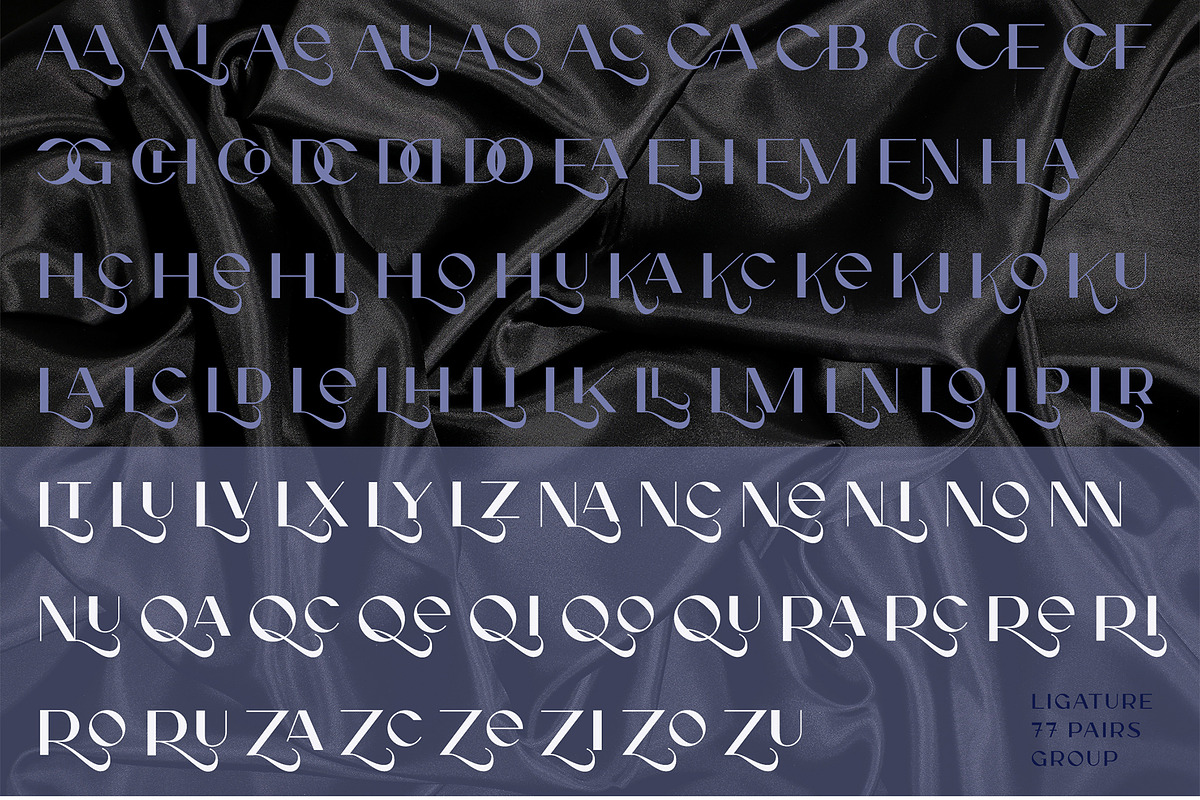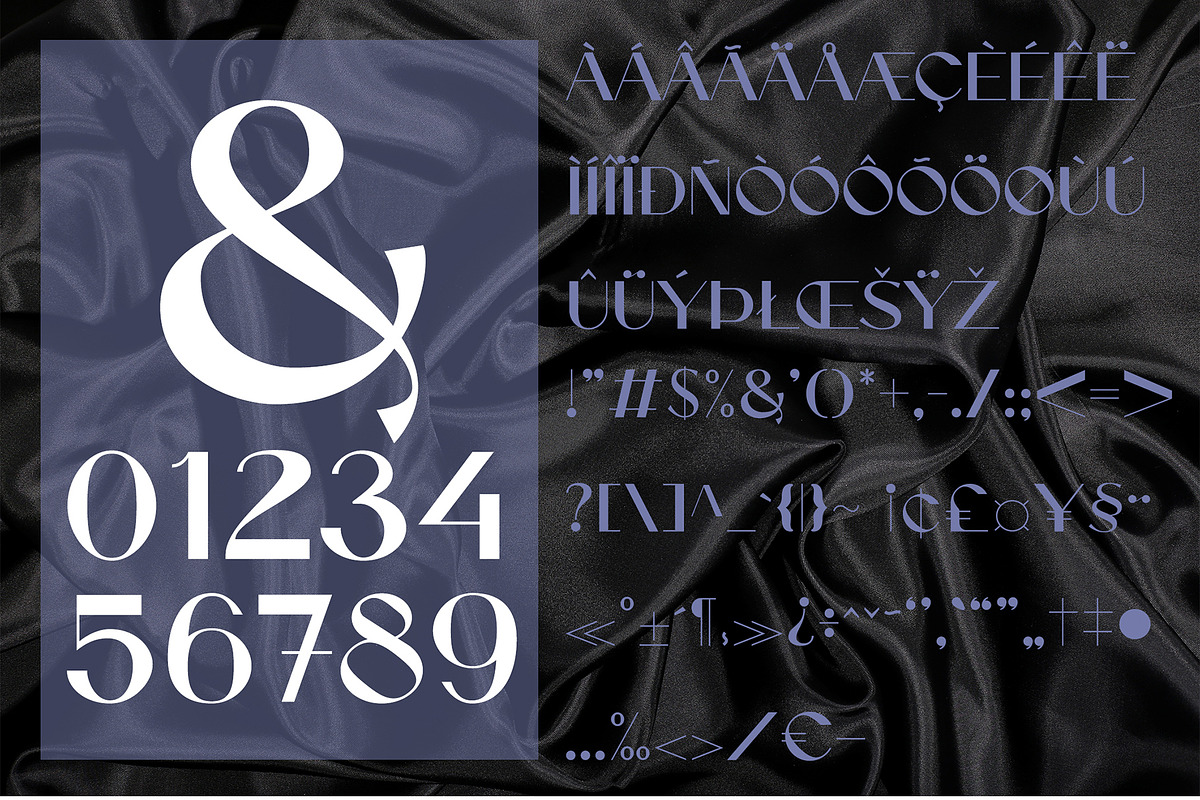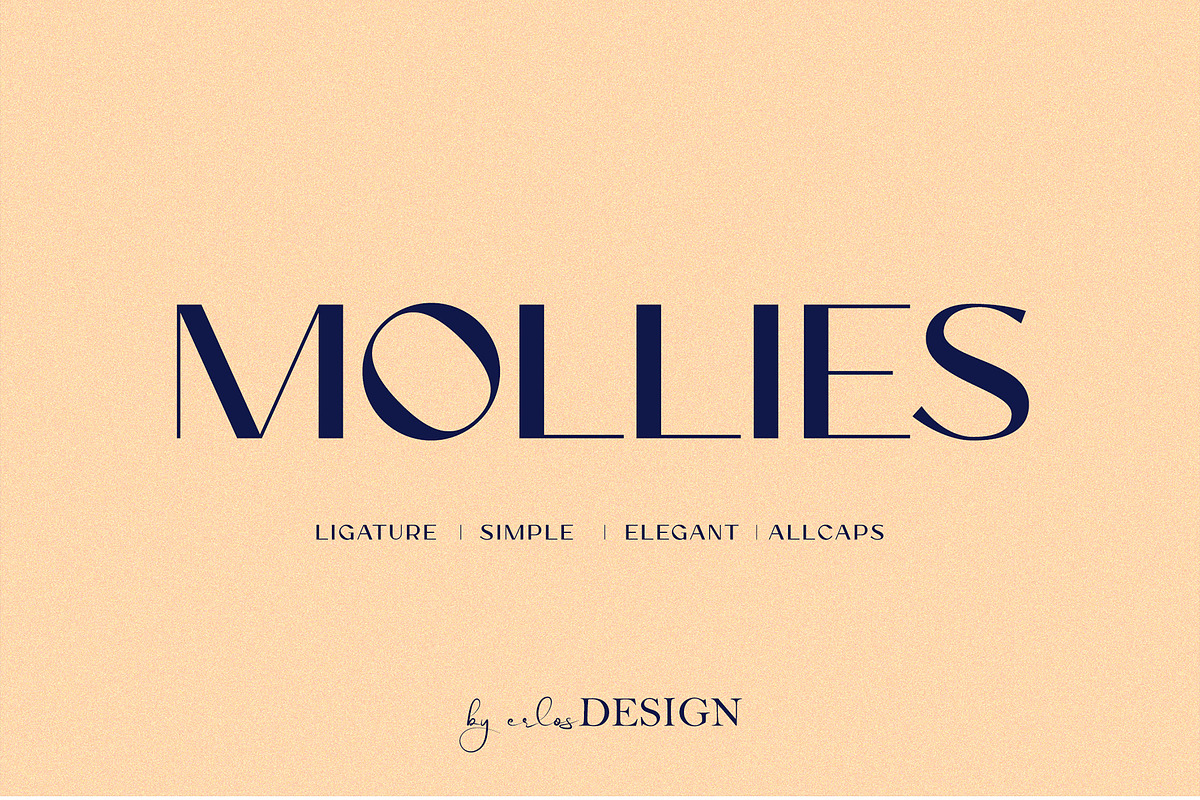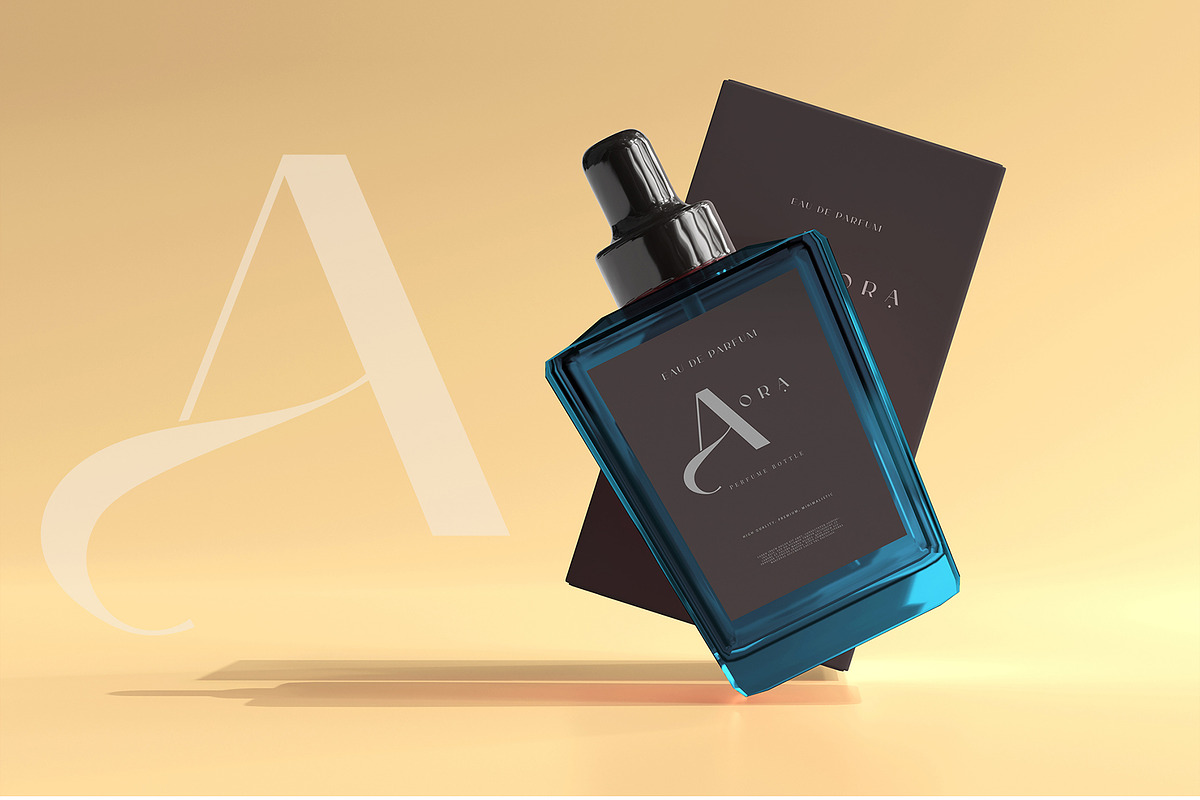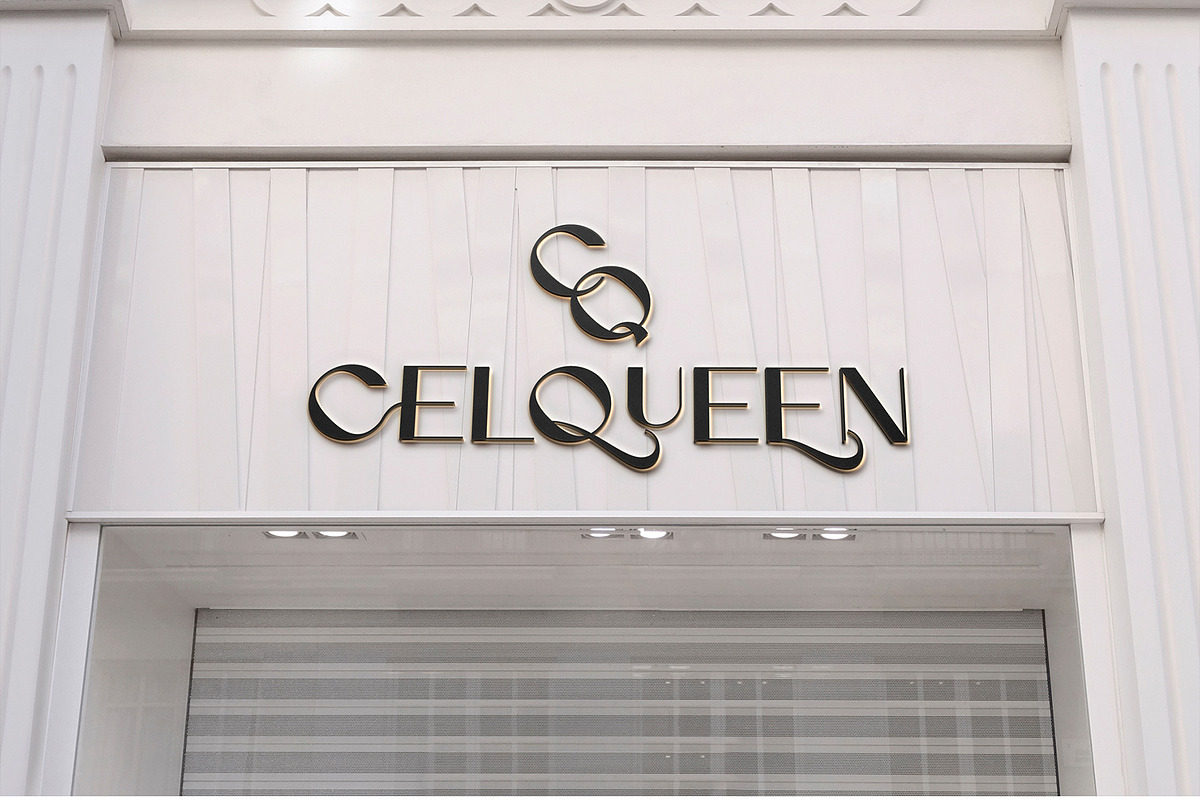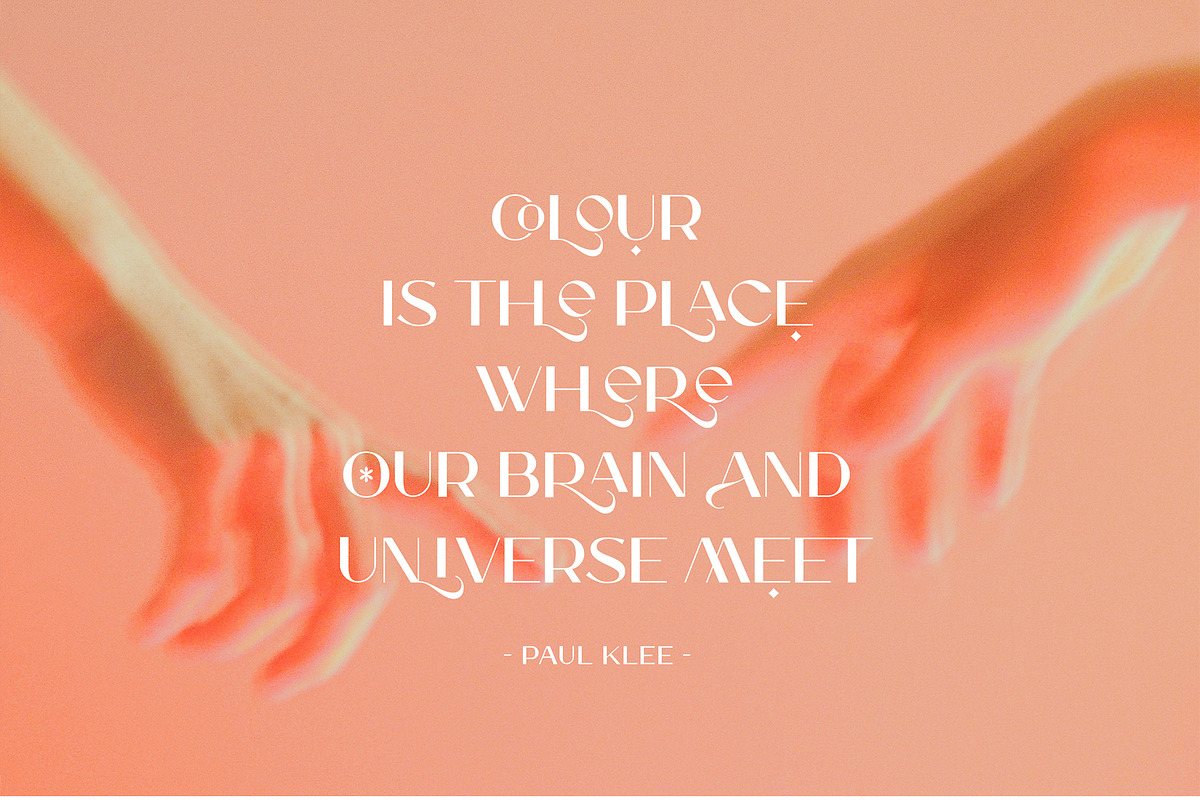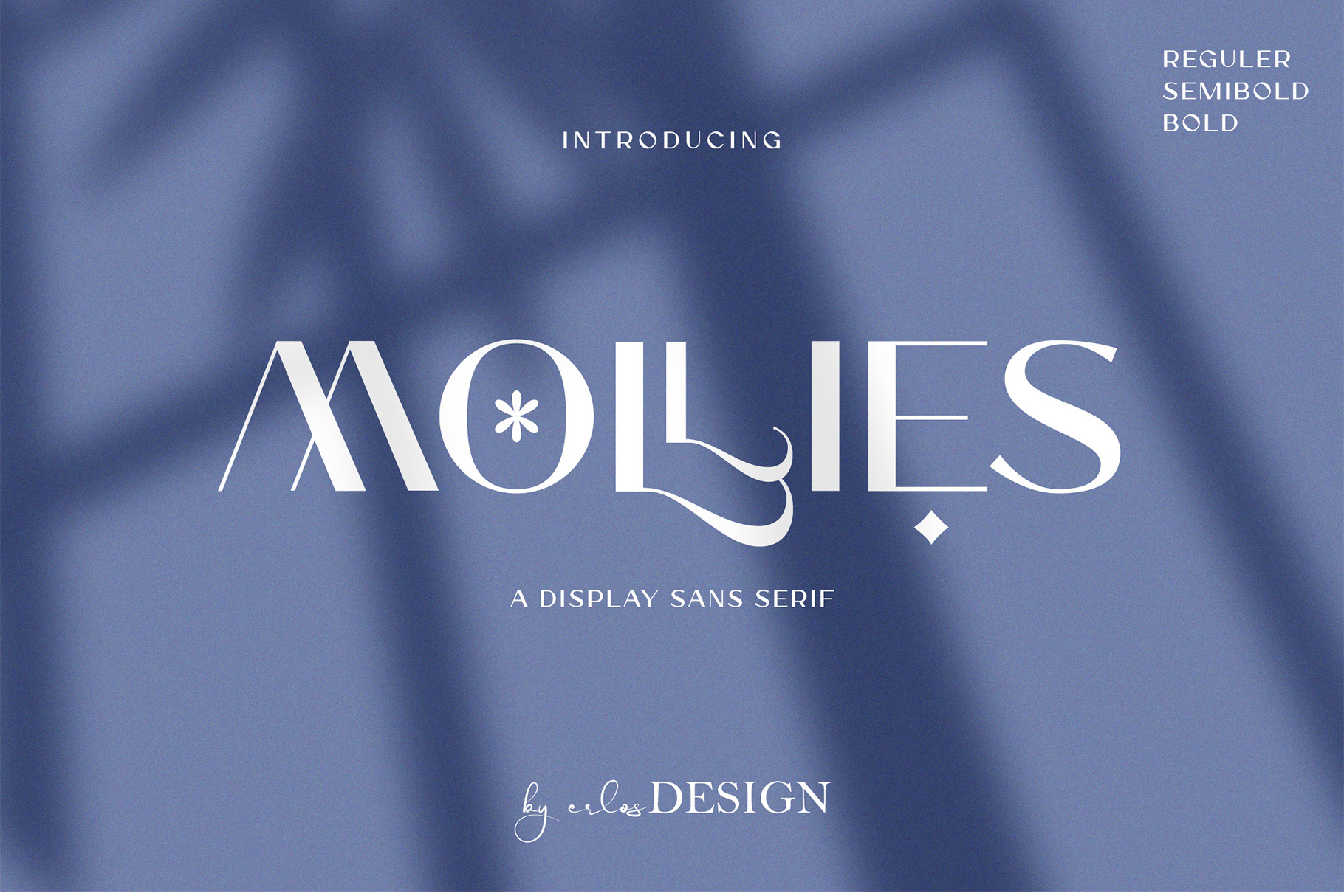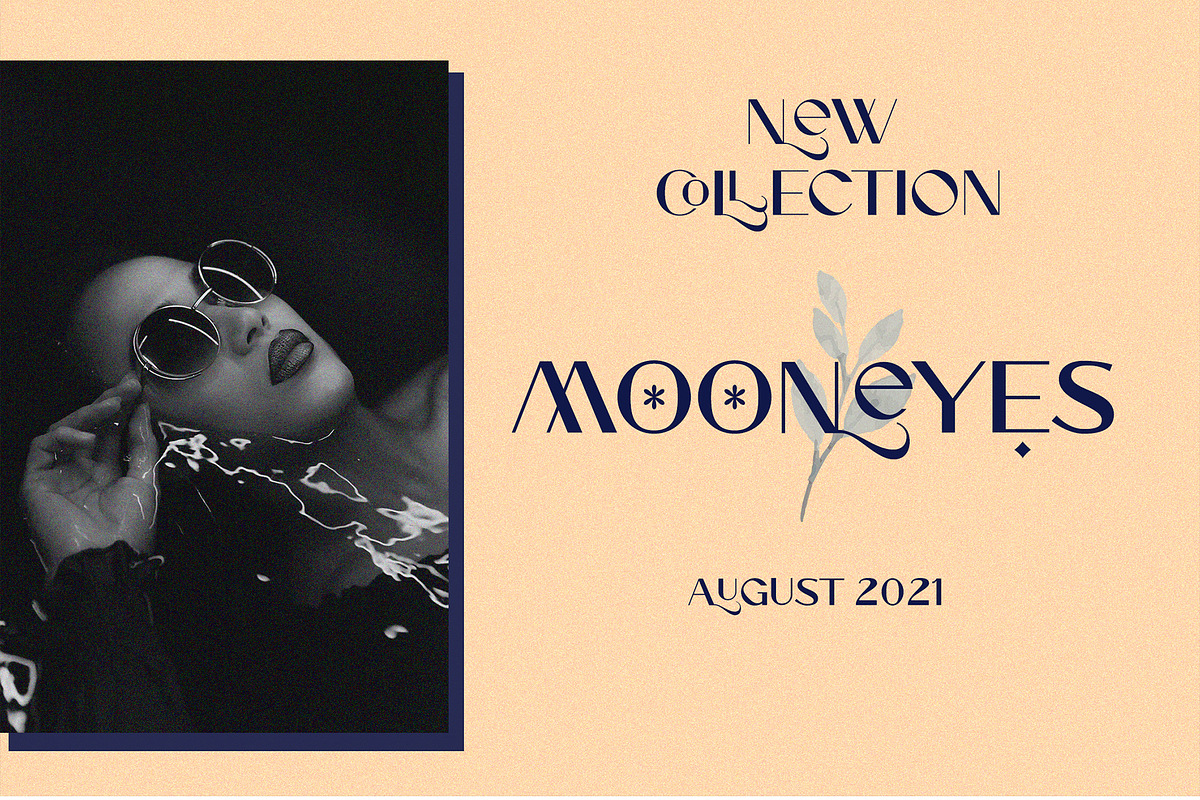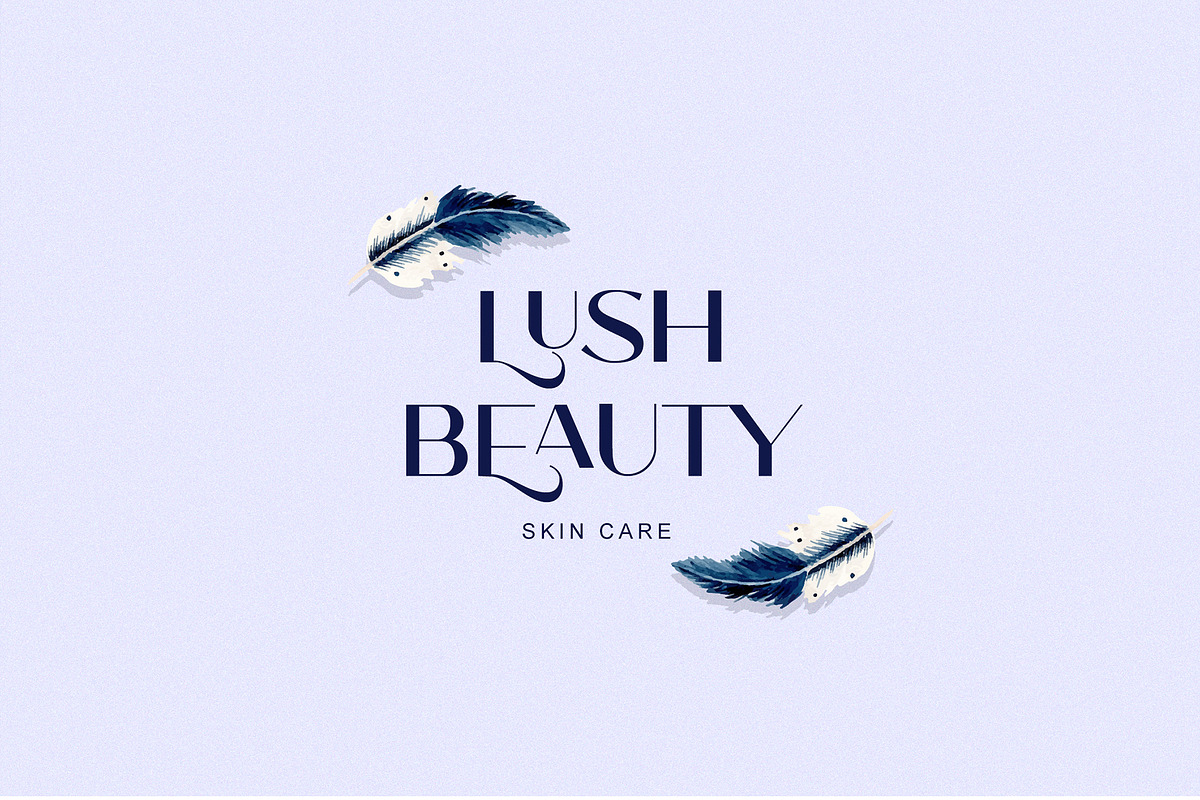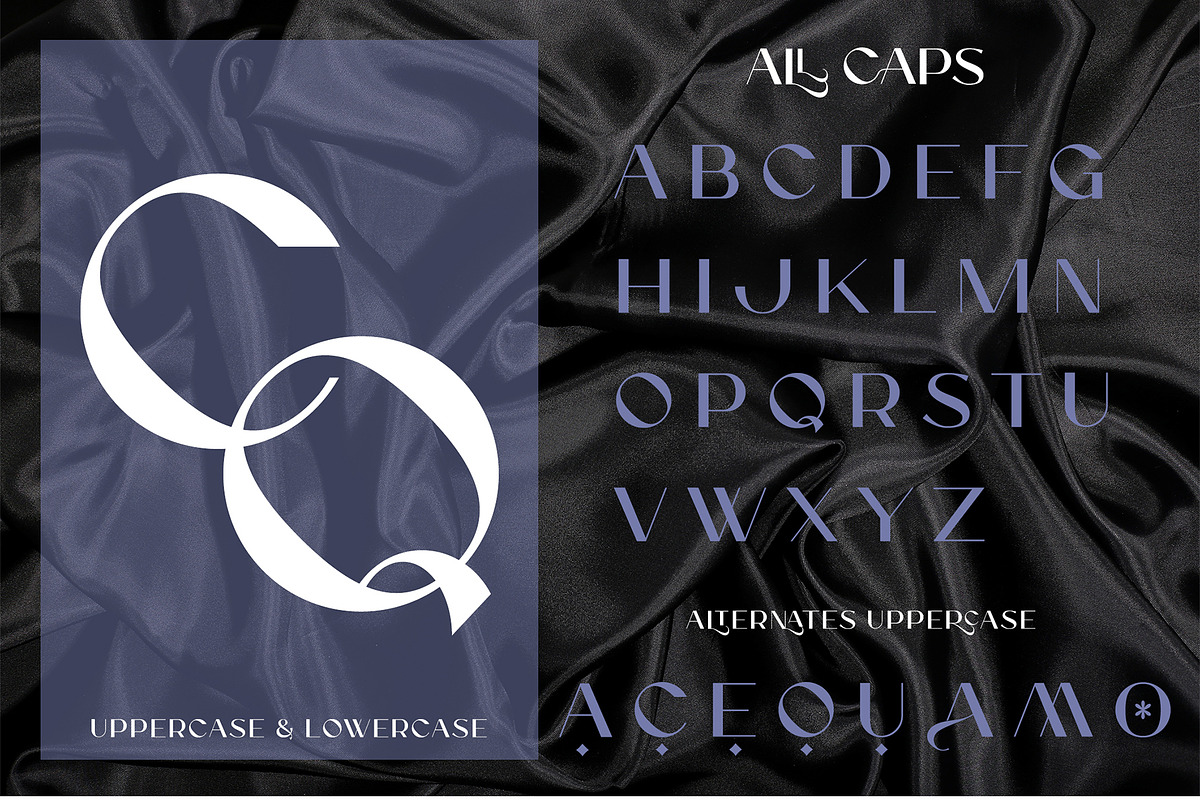
MOLLIES - Sans Serif Font
MOLLIES - Modern Sans Serif by erlosDESIGN
Mollies is an elegant and luxurious sans serif font. Trendy and stylish, this font will elevate each of your creations. Mollies is PUA encoded which means you can access all of the glyphs and swashes with ease! The file you will get is: